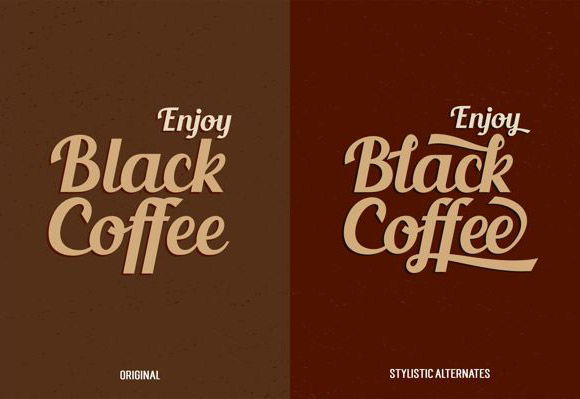
Blenda Script is a free experimental font inspired by lobster font, a bold vintage script. can be used for various purposes. Such as news, posters, logos, badges etc. To enable OpenType Stylistic alternatives intelligent programs or manually select a character from the Glyph Palette. License: Free for Personal and Commercial use Free weights: Bold |